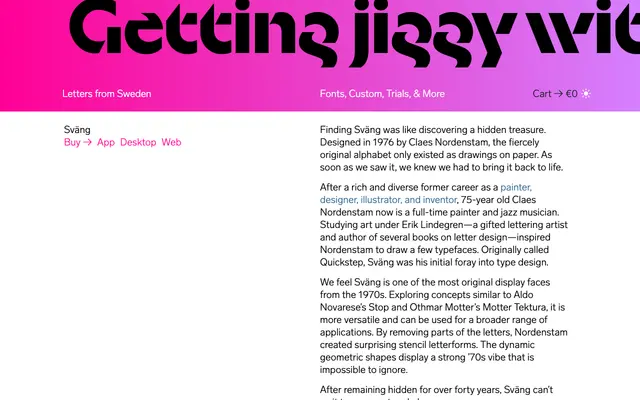
Sväng
Letters from Sweden · Claes Nordenstam, Göran Söderström · 2019
A geometric stencil display face originally drawn by Claes Nordenstam in 1976 and revived by Letters from Sweden in 2019, with surprising letterforms built by strategically removing parts of the glyphs.
Originally titled Quickstep, the face was drawn in 1976 by Claes Nordenstam under the influence of his tutor Erik Lindegren and sat undiscovered on paper for over four decades before Letters from Sweden digitised it. The design shares conceptual territory with Aldo Novarese's Stop and Othmar Motter's Motter Tektura, but its range of three weights from Thin to Bold and broader glyph coverage make it more adaptable than its peers. The stencil geometry carries an unmistakable 1970s rhythm that works across posters, editorial headings and identity work that calls for strong visual character.
A stencil display face built from dynamic geometric forms with deliberate counters removed, placing it firmly in the display category with a geometric stencil subcategory, akin to Novarese's Stop and Motter Tektura.